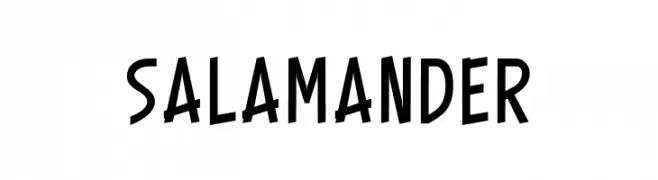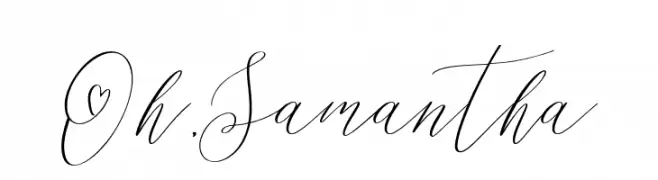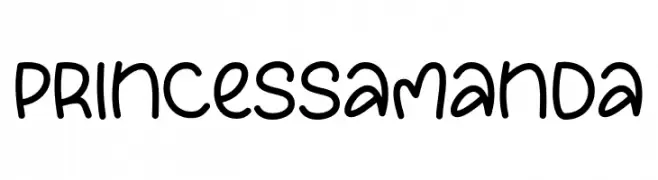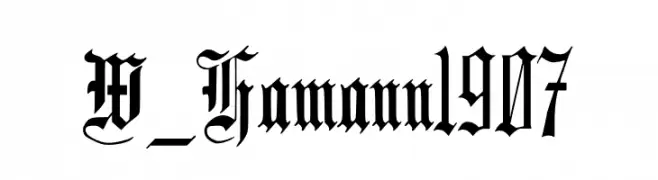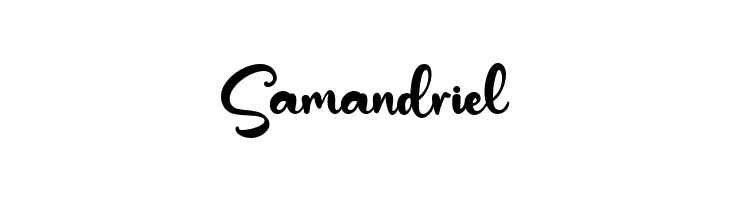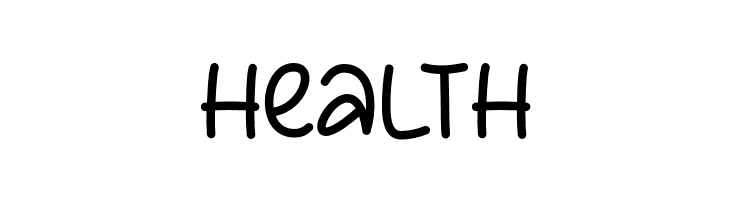
A playful, casual handwritten font with flowing, irregular letterforms.
A playful, handwritten font with rounded, irregular letterforms.
A modern, angular font with a dynamic and energetic style.
A playful, whimsical script font with a handwritten style.
An elegant and sophisticated script font with flowing, cursive letters and high contrast.
A lively and expressive handwritten font with fluid, connected letterforms.
A casual, elegant handwritten font with fluid, connected letterforms.
A playful, handwritten font with smooth, rounded edges and a friendly appearance.
A playful, hand-drawn font with rounded, smooth strokes and a whimsical style.
A traditional Blackletter font with ornate, gothic letterforms and high contrast.